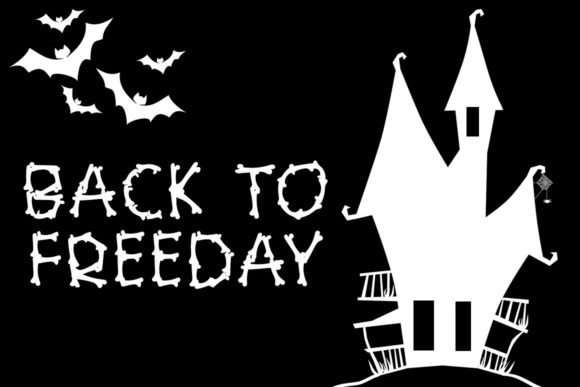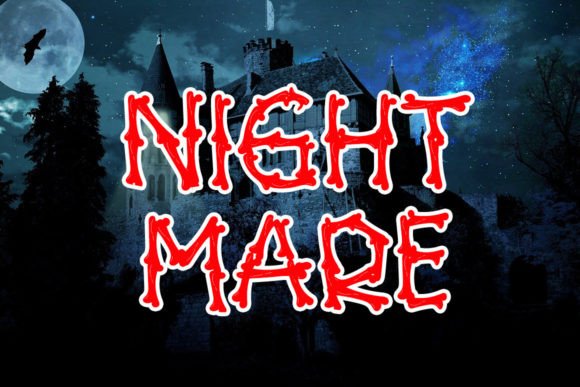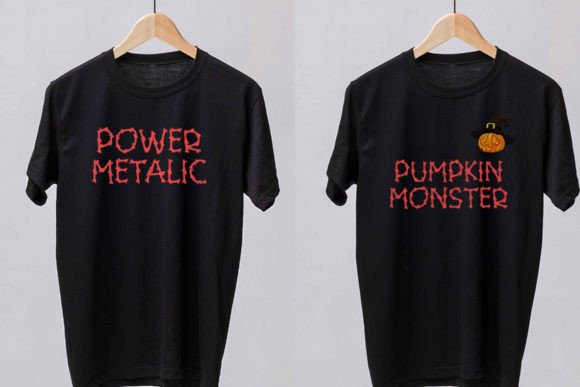
Bring Monsters to Life with the Spooky Animal Monster Font
As a designer, have you ever found yourself brainstorming ideas for a Halloween-themed project and suddenly, a spark of creativity strikes? Maybe it’s the eerie sounds of howling wind, or the flickering light of a jack-o’-lantern that sets your imagination ablaze. Whatever the trigger, the result is often a thrilling idea that needs the perfect font to bring it to life.
Enter the Animal Monster Font – a spooky and creative decorative font designed to add an air of eeriness to your designs. Perfect for Halloween storybooks, spooky product packaging, or children-related designs, this font is sure to captivate your audience and leave them in awe. With the Animal Monster Font, you’ll be able to breathe life into your most terrifying (or delightful) ideas, making it a valuable addition to any designer’s toolkit.
Key Features of Animal Monster Font
- Unique Characteristics: The font features a mix of animal and monster-inspired designs, with intricate details and bold lines that add a touch of whimsy to any text.
- Character Set: The font includes a comprehensive set of characters, including uppercase and lowercase letters, numbers, punctuation marks, and special symbols.
- Style Variations: The font comes in multiple styles, including Regular, Bold, Italic, and Outline, allowing users to customize their text to suit their needs.
Animal Monster Font Review
Overall, I think the Animal Monster Font has a lot going for it. ✨ The unique blend of animal-inspired characters and bold, playful lines makes it perfect for projects that need a fun, whimsical touch. The font is also highly customizable, with a wide range of options for color, size, and style.
- ✨ Unique and playful design that’s perfect for projects that need a fun touch.
- ✨ Highly customizable with a wide range of options for color, size, and style.
- ✨ Suitable for a variety of projects, from children’s books to advertising and marketing materials.
However, I do have a few concerns. ⚠️ The font may be too loud or overwhelming for some projects, and the animal-inspired characters can be a bit distracting if not used carefully. Additionally, the font is not as versatile as some other options, and may not work well in more formal or professional settings.
Overall, I think the Animal Monster Font is a great choice for projects that need a fun and playful touch. However, it’s not the best option for every project, and designers should be mindful of its limitations and potential drawbacks.
Use the Animal Monster Font to add a playful and whimsical touch to your designs.
The Animal Monster Font is perfect for:
Children’s books and educational materials.
Party invitations and decorations.
Advertising and marketing campaigns.
Any design that needs a playful and whimsical touch.